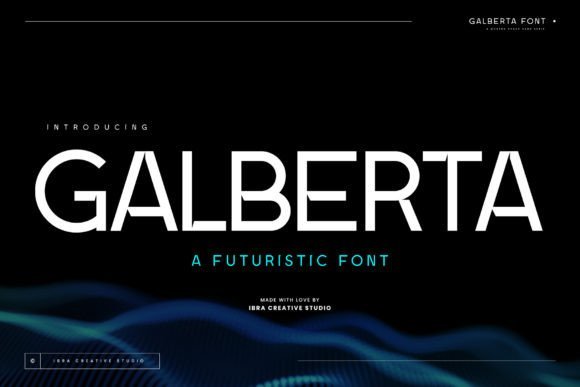
Introduction to Galberta Font
Galberta, a cutting-edge futuristic font, embodies the essence of tomorrow’s typography with its sleek and innovative design.
Its geometric, sans-serif characters seamlessly blend bold, crisp lines and subtle curves, exuding a sense of modernity and minimalism The font’s minimalist aesthetic is complemented by its distinct fusion of sharp angles and graceful arches, creating a visually captivating harmony.
Key Features of Galberta Font